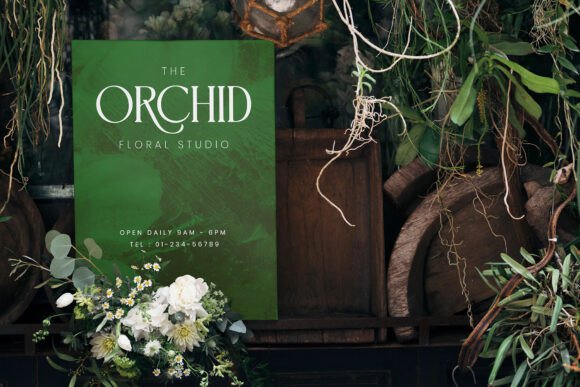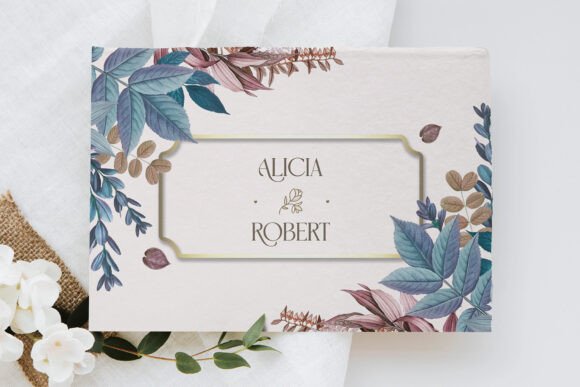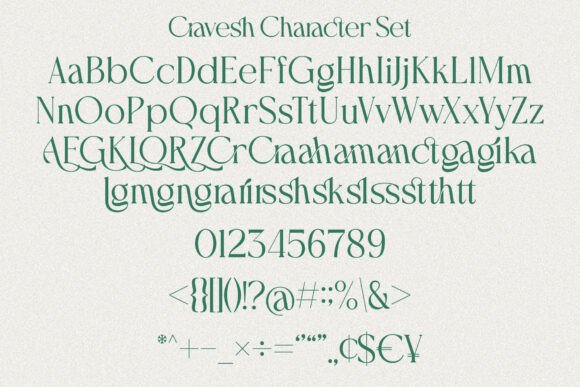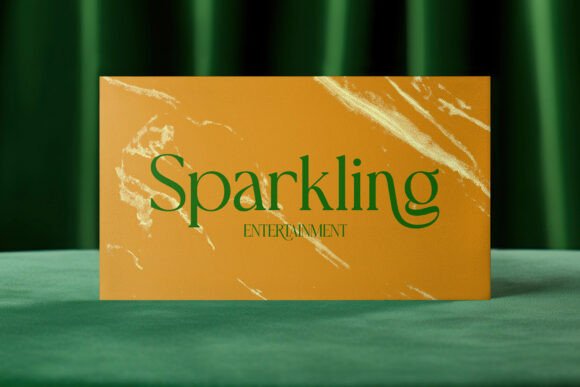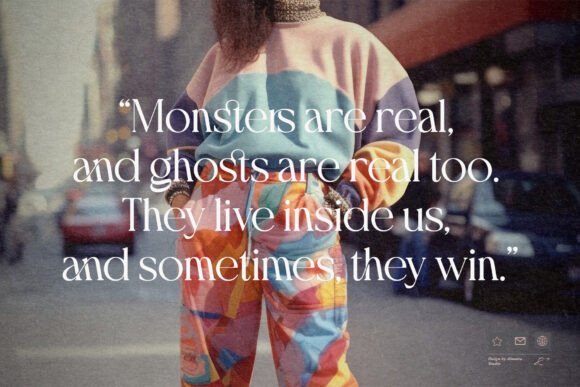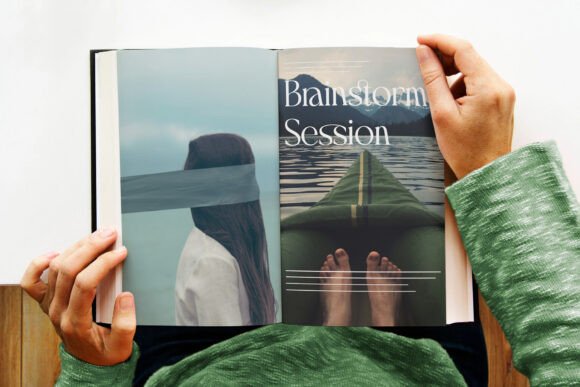
Cravesh Font: Elevate Your Designs with Elegance and Sophistication
In the world of typography, a font can make or break a design. For designers and crafters seeking to add a touch of elegance and sophistication to their projects, Cravesh Font is an exceptional choice. This ligature stylish & elegant serif font is versatile and suitable for a wide range of applications, from branding projects to wedding designs.
What is Cravesh Font?
Cravesh Font is a meticulously crafted serif font that exudes style and refinement. Its ligature feature sets it apart, providing a unique and personalized touch to any text. The font’s design is characterized by its elegant lines, sophisticated curves, and precise letter spacing, making it perfect for projects that demand a high level of typographic excellence.
Key Features of Cravesh Font
- Ligature Stylish: Cravesh Font features ligatures that automatically replace certain letter combinations with a single, more aesthetically pleasing glyph. This results in a more fluid and harmonious text flow.
- Elegant Serif: The font boasts traditional serif elements, adding a classic and timeless feel to any design.
- Versatility: Cravesh Font is highly versatile and can be used across various mediums, including digital and print.
- High Readability: The font’s clear and well-spaced characters ensure excellent readability, making it suitable for body text and headlines alike.
Use Cases for Cravesh Font
Cravesh Font’s versatility makes it an excellent choice for a multitude of design projects. Here are some of the ways you can utilize this elegant font:
- Branding Projects: Establish a strong brand identity with Cravesh Font’s distinctive and sophisticated style.
- Logos: Create memorable and impactful logos that stand out with the font’s unique ligatures and elegant serifs.
- Social Media Posts: Elevate your social media presence with stylish and engaging posts that capture your audience’s attention.
- Advertisements: Use Cravesh Font to add a touch of luxury and sophistication to your ads, making them more compelling and effective.
- Labels and Product Packaging: Enhance your product’s visual appeal with elegant labels and packaging designs.
- Photography: Add a professional touch to your photography with Cravesh Font’s refined and classic style.
- Wedding Designs: Make your wedding designs, such as invitations and decorations, truly special with the font’s romantic and elegant feel.
- Watermarks: Protect your work with stylish watermarks that add a professional touch.
- Invitation Product Designs: Create stunning invitations for any occasion with Cravesh Font’s beautiful and intricate design.
- Stationery: Elevate your stationery, including business cards, letterheads, and notebooks, with a sophisticated and timeless font.
Why Choose Cravesh Font?
Choosing Cravesh Font for your design projects comes with numerous benefits:
- Unique Style: The font’s ligature feature and elegant serifs provide a distinctive style that sets your designs apart.
- Professionalism: Cravesh Font adds a level of sophistication and professionalism to any project, making it ideal for high-end designs.
- Readability: The font’s clear and well-designed characters ensure that your text is easy to read, enhancing the overall user experience.
- Flexibility: Use Cravesh Font across various platforms and mediums, from digital screens to print materials.
- Experiment with Ligatures: Take advantage of the font’s ligature feature to add a unique touch to your text.
Cravesh Font is a powerful tool for designers and crafters looking to add elegance and sophistication to their projects. With its ligature stylish and elegant serif design, this font is suitable for a wide range of applications, from branding and logos to wedding designs and stationery. By choosing Cravesh Font, you can elevate your designs, establish a strong brand identity, and create visually stunning materials that leave a lasting impression.